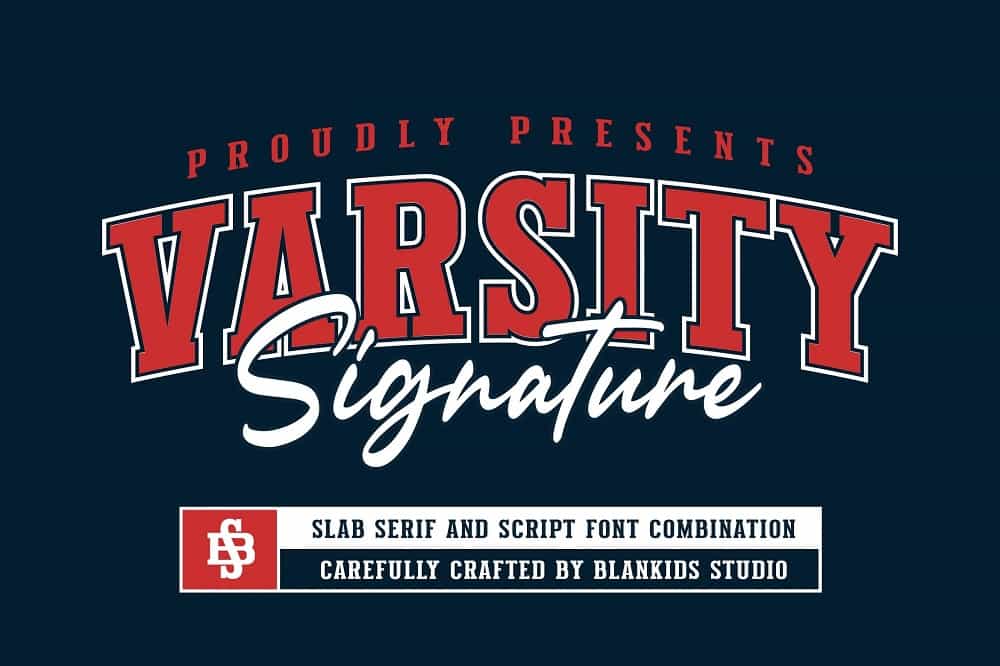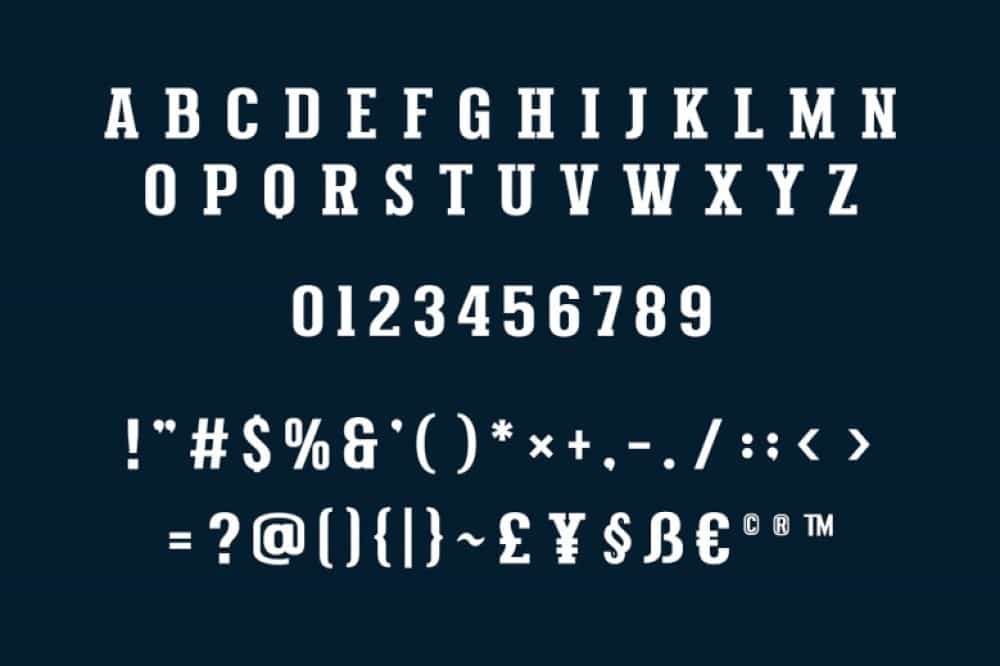
This font is Varsity Signature which is a college font combination, which can be used for any professional project branding like logotype, watermarks, poster, branding, promotions, product packaging etc. Each and every letter of this font is created in the style of college and varsity. This font comes in three font combination only.